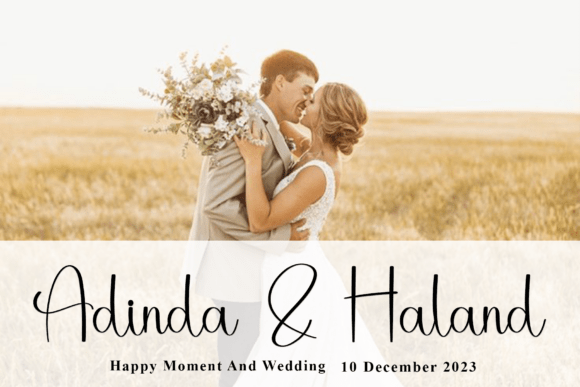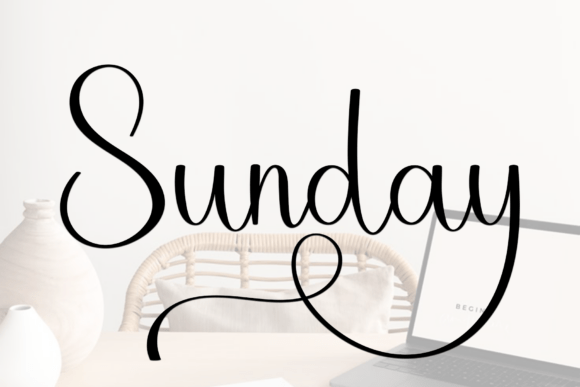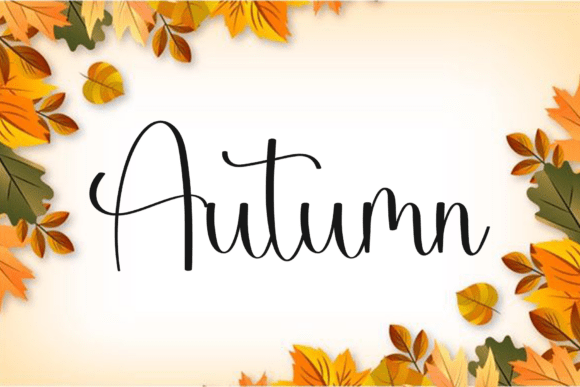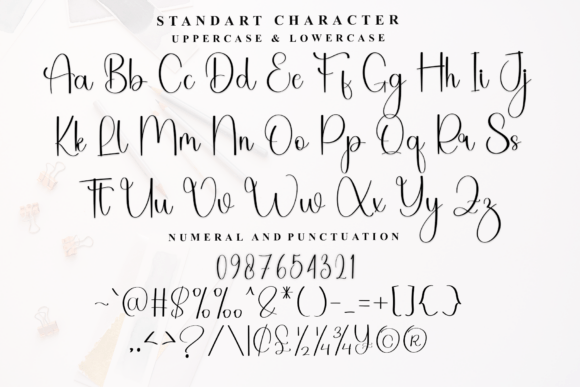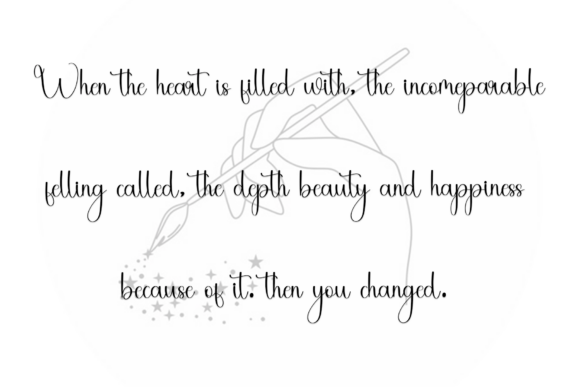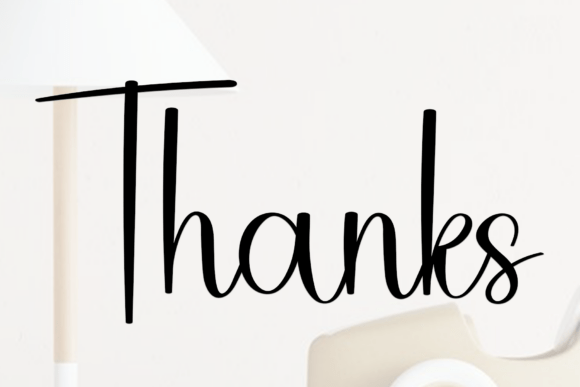
The Friendly Font: A Beautifully Flowing Script Font for Creative Projects
I’ll never forget the design moment when I stumbled upon the Friendly font. I was working on a branding project for a lifestyle client, and I was struggling to find the perfect font that would capture the warmth and sophistication of their brand. The client wanted a font that was elegant yet casual, simple yet eye-catching. After hours of searching, I finally found Friendly, and it was love at first sight! 💕
With its smooth curves and delicate swashes, Friendly instantly added a touch of warmth and sophistication to my design. I knew right then and there that I had to share this beautiful font with fellow designers, crafters, and creative hobbyists. In this article, I’ll give you an honest review of Friendly, a practical guide on how to use it, and some helpful tips and tricks to get the most out of this amazing font.
An Honest Review of Friendly Font
What I Love About Friendly Font ✨
- ✅ Beautifully flowing script with an elegant yet casual feel
- ✅ Smooth curves and delicate swashes that add a touch of sophistication
- ✅ Perfect for branding, invitations, social media, and heartfelt quotes
- ✅ Versatile and simple, yet eye-catching and clean
While Friendly is an amazing font, there are a few small quirks to keep in mind:
- ⚠️ Some swashes may not work well with certain sentence structures or punctuation
- ⚠️ Limited kerning options, which may require manual adjustments
The Backstory of Friendly Font
According to the designer, Friendly font was inspired by the classic script fonts of the 19th century. The designer wanted to create a font that was both elegant and approachable, perfect for creative projects that require a touch of sophistication. With its smooth curves and delicate swashes, Friendly font is a beautiful addition to any design project.
Q: What type of projects is Friendly font best suited for?
A: Friendly font is perfect for branding, invitations, social media, and heartfelt quotes. Its elegant yet casual feel makes it versatile and suitable for a wide range of creative projects.
Q: Is Friendly font suitable for body text?
A: While Friendly font is beautiful and elegant, it’s best suited for headlines and titles rather than body text. Its script style and swashes may make it difficult to read in large blocks of text.